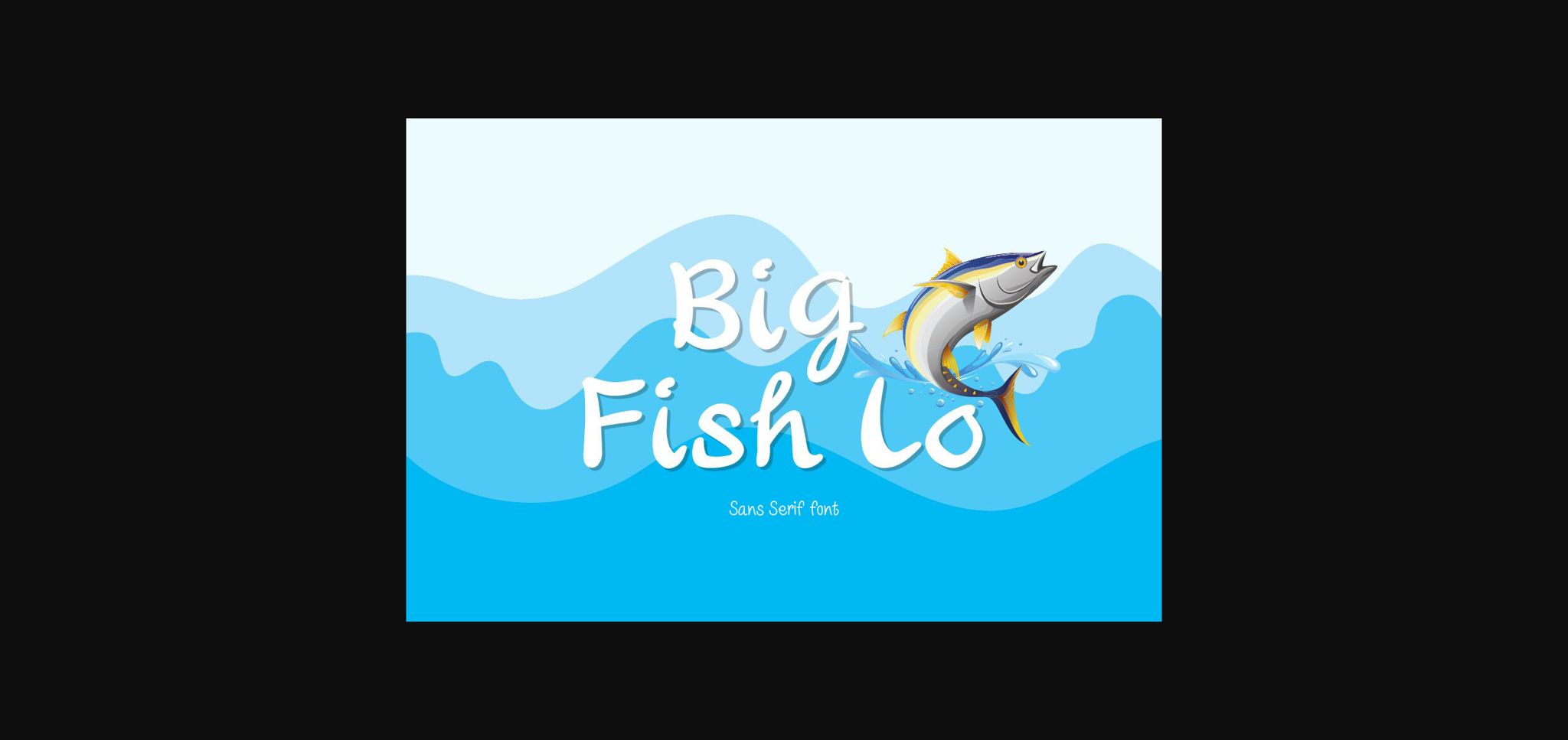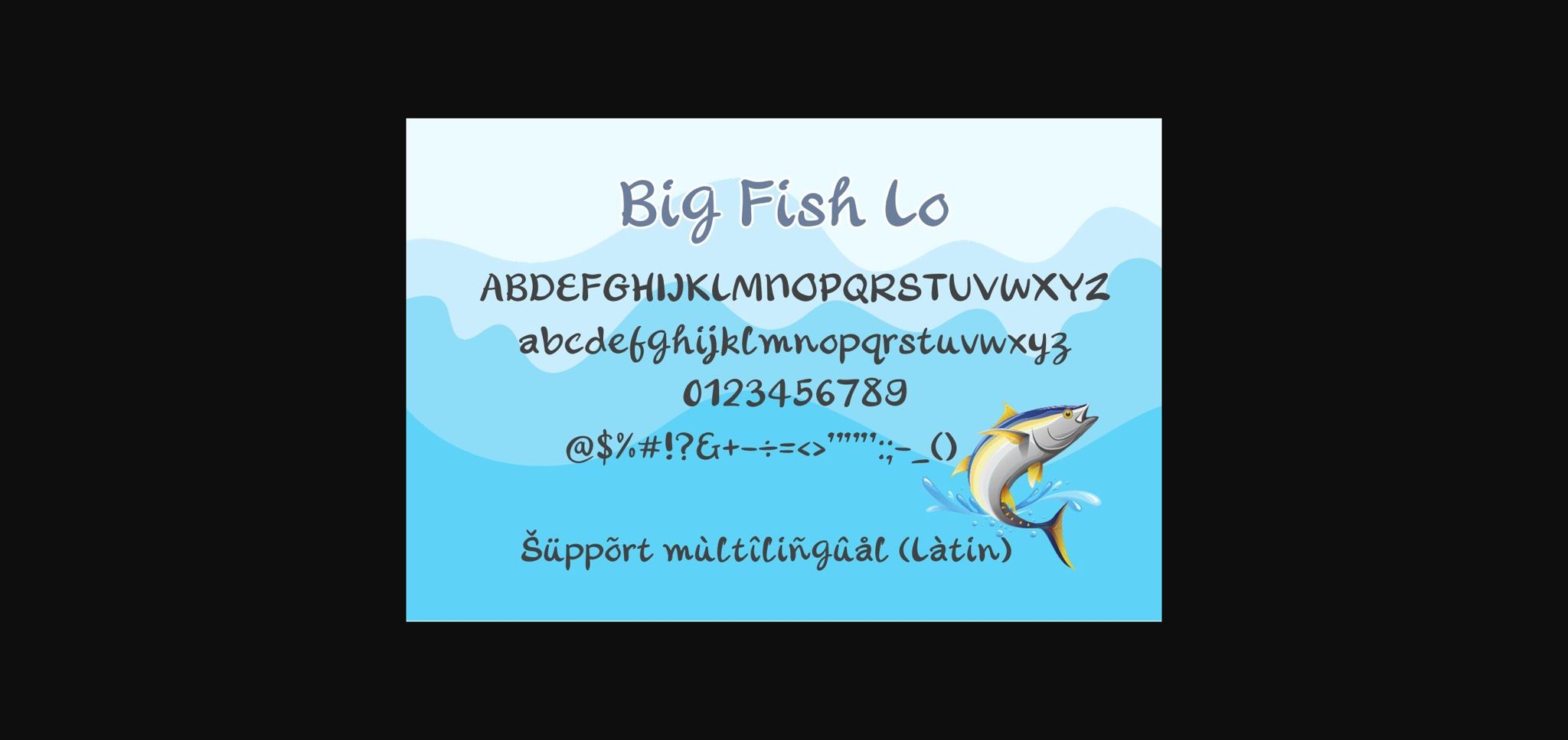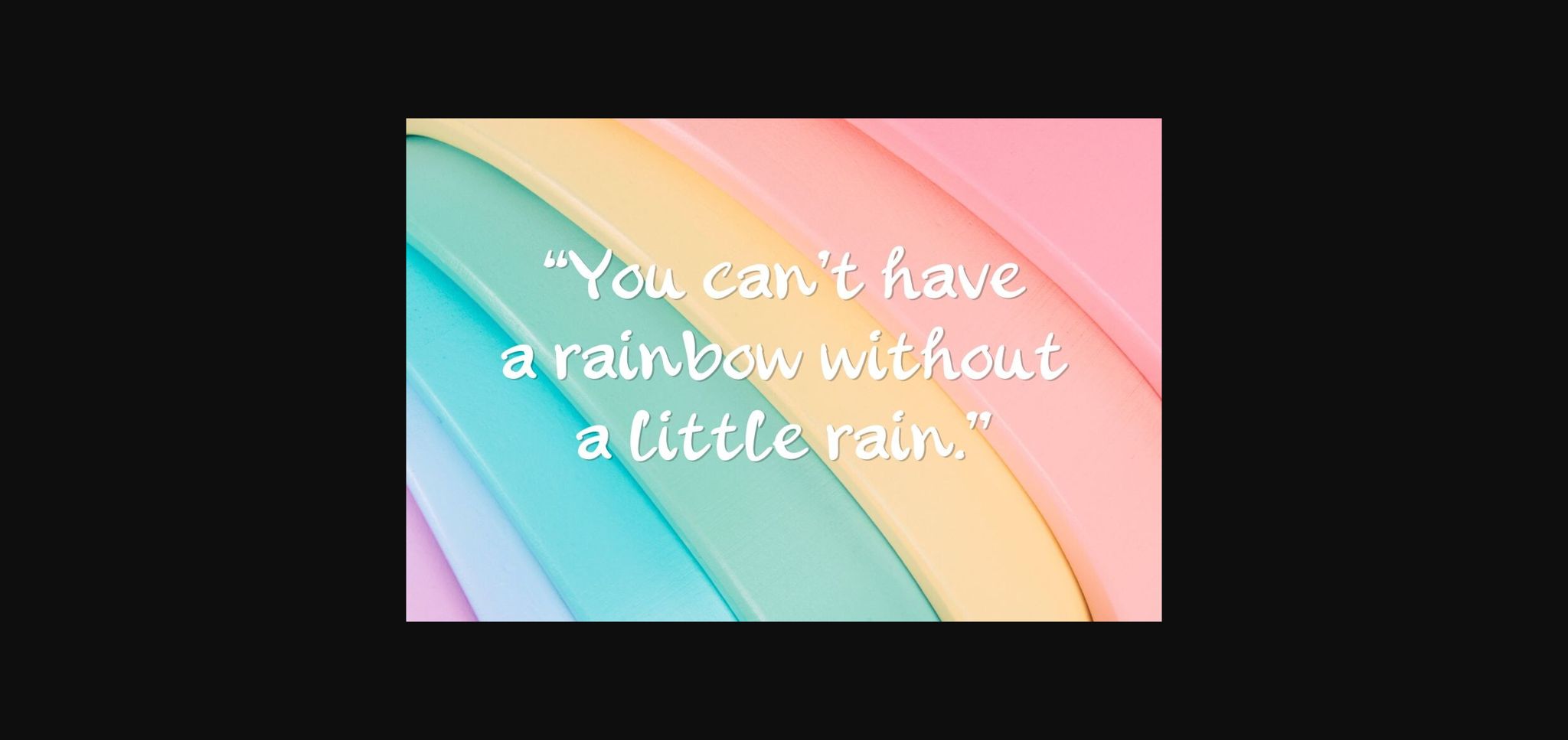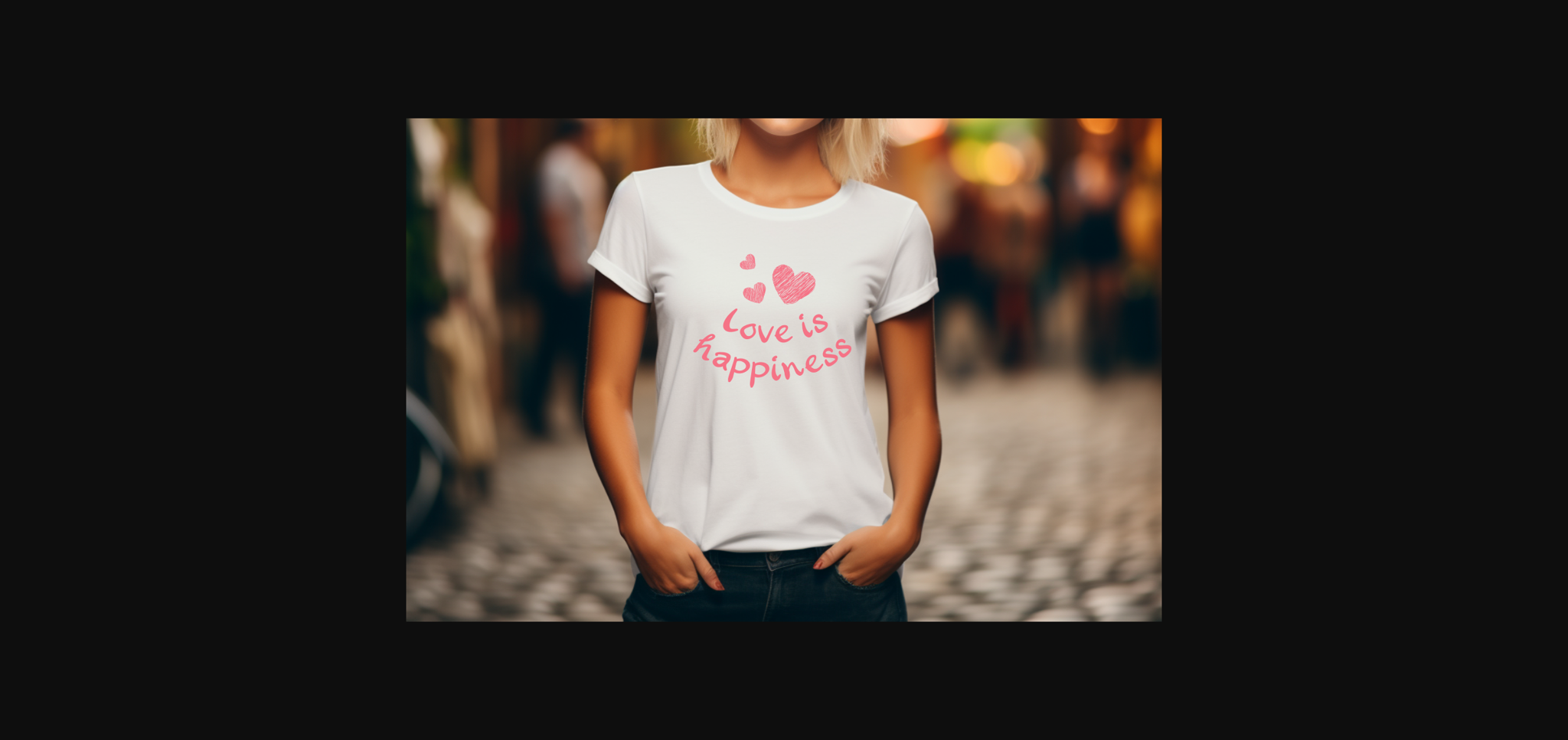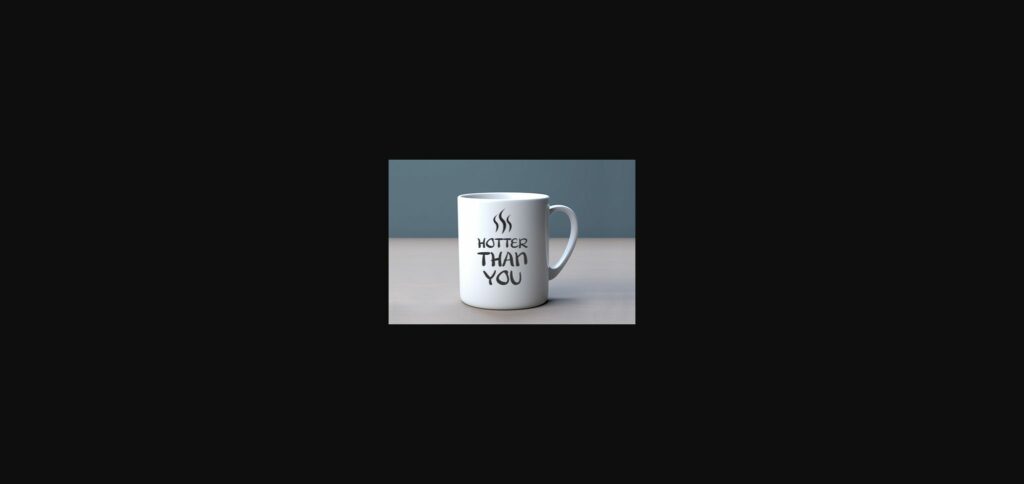
About Big Fish Lo Font
Big Fish Lo is a cute, thick lettered, and cheerful sans serif font style. Perfect for a wide spectrum of applications such as greeting cards, headlines, thank you cards, quotes, website design, logos, posters, blogs, bag, T Shirt, clothingand many more!